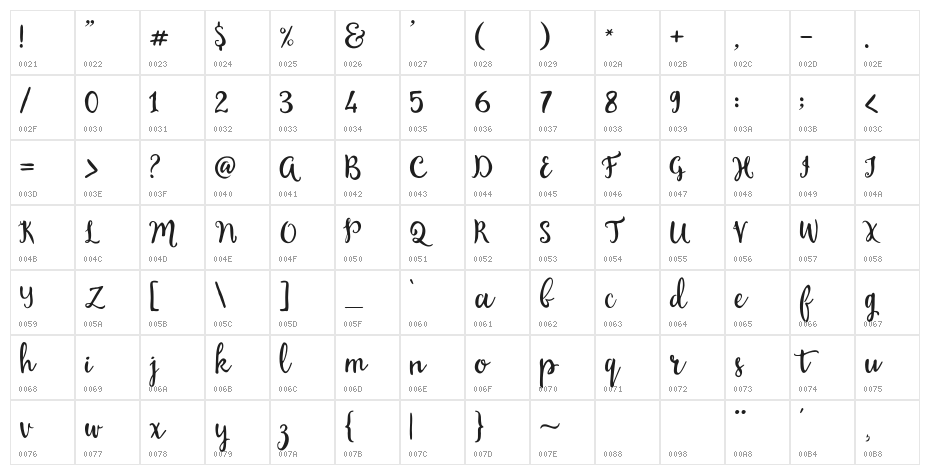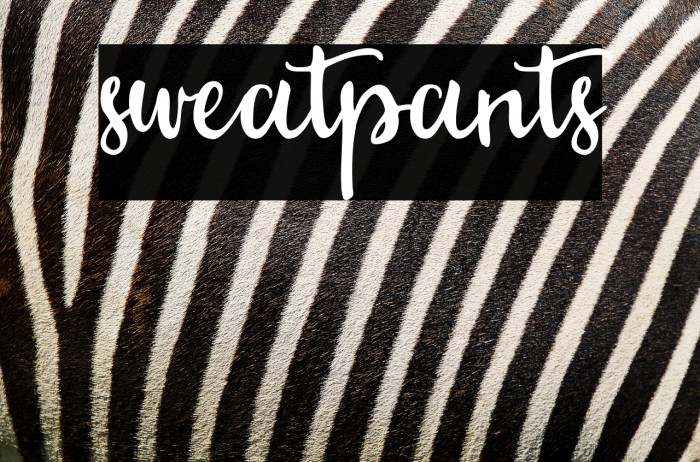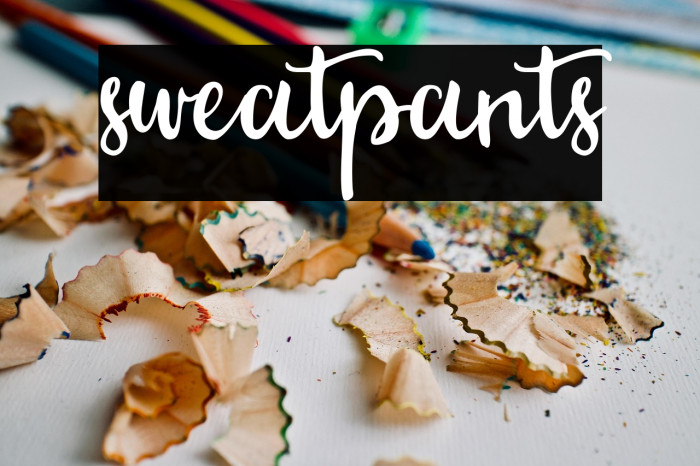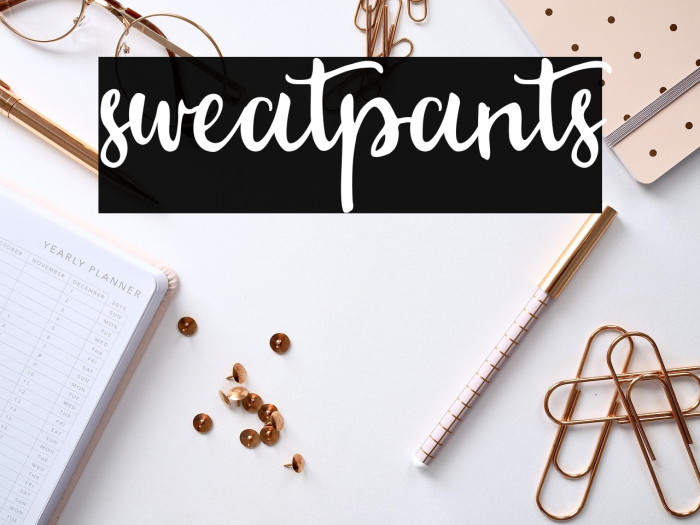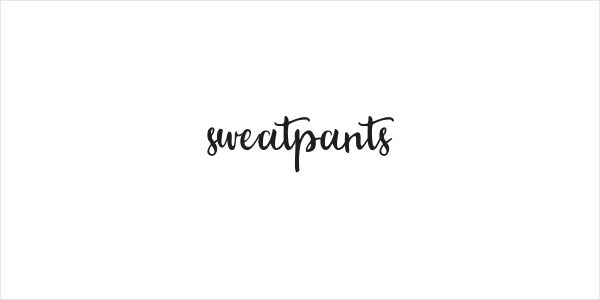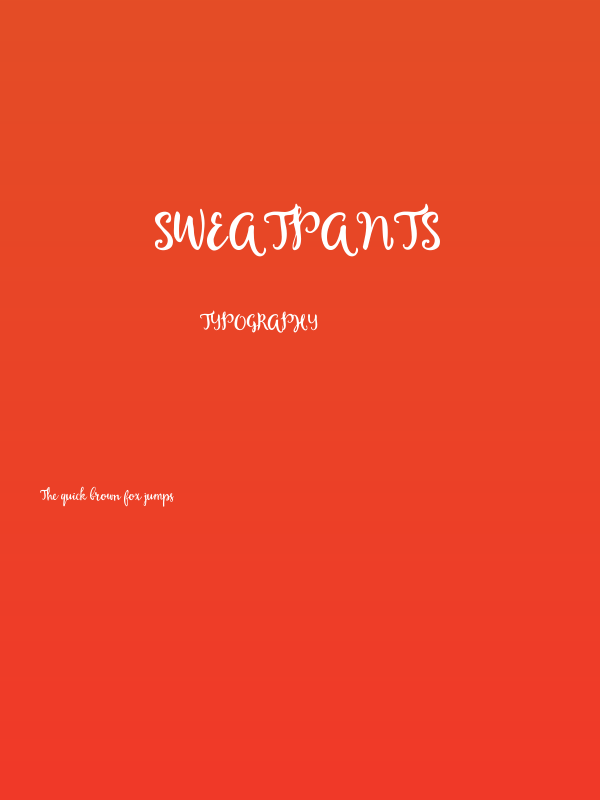
sweatpants Font
sweatpants Description
This font features a lively and flowing script style, characterized by its bold and expressive strokes. The uppercase letters exhibit a playful yet elegant flair, with smooth curves and a consistent rhythm that enhances readability. The lowercase letters maintain a cohesive style, with distinctive loops and swashes that add a touch of sophistication. The numerals are well-integrated, matching the overall aesthetic with their rounded and dynamic forms. Special characters are thoughtfully designed, ensuring versatility and functionality in various contexts. This font's energetic and artistic nature makes it suitable for creative projects that require a personal and engaging touch.